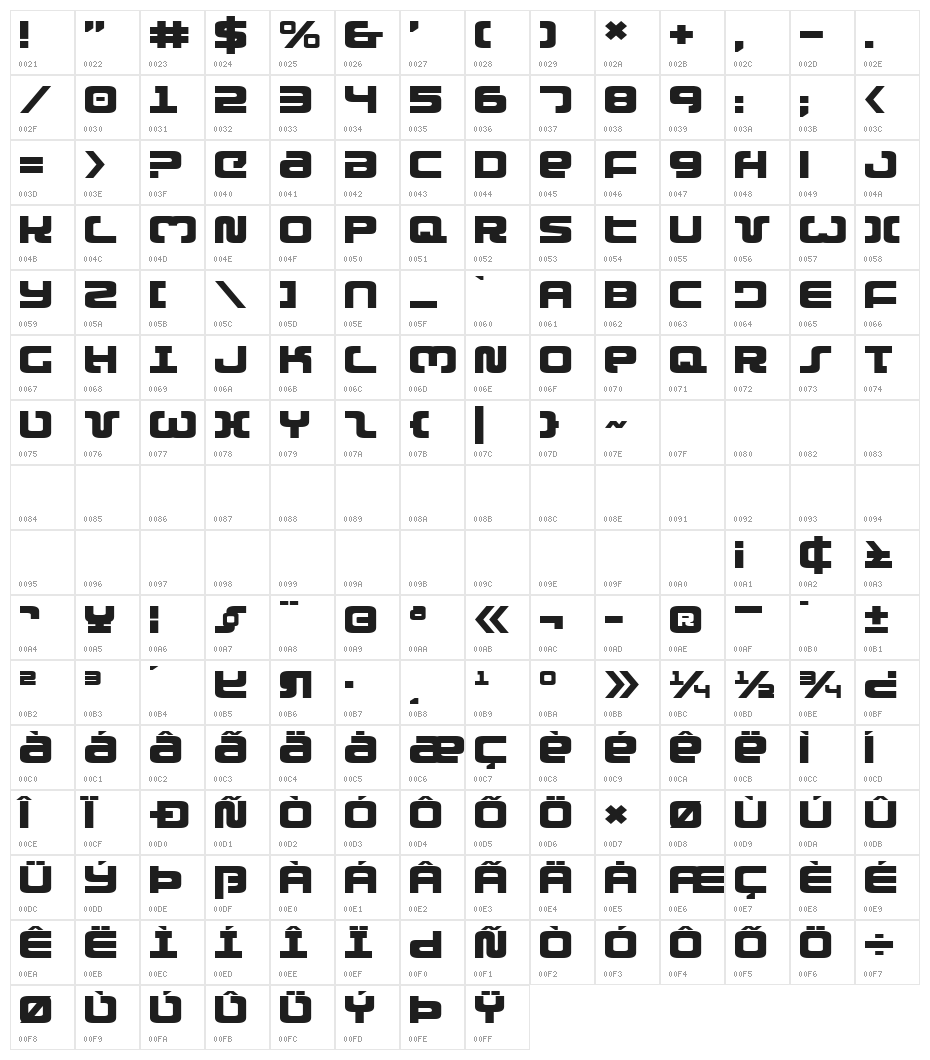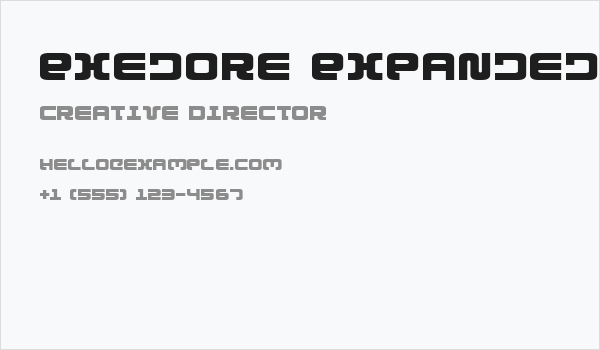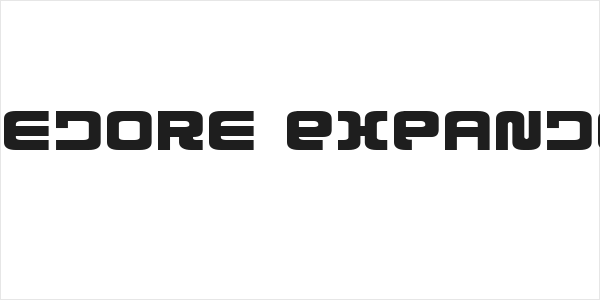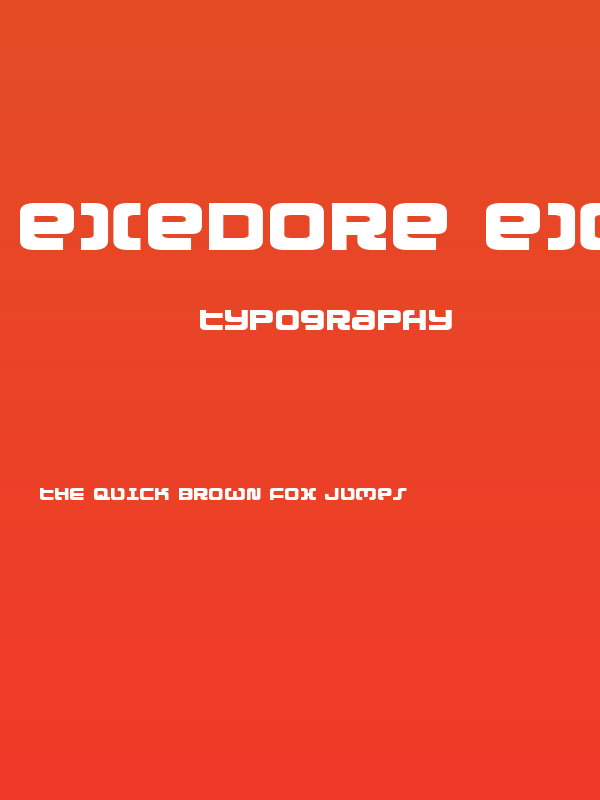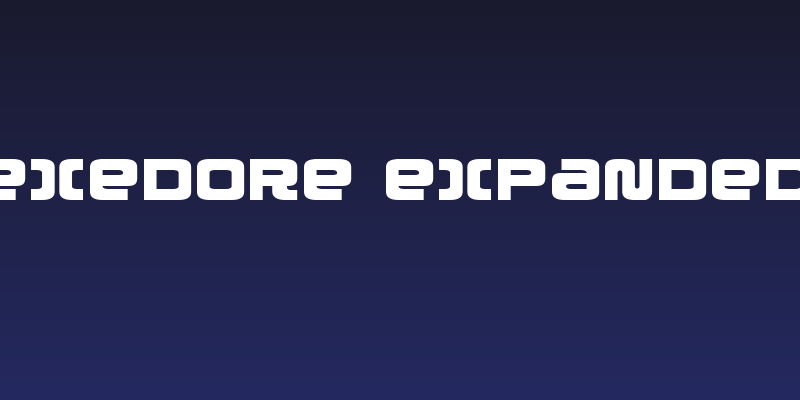
Exedore Expanded Font
Exedore Expanded Description
This font features a bold and futuristic design with a distinctly geometric structure. The characters are wide and have a blocky appearance, contributing to a strong visual impact. The uppercase and lowercase letters share a consistent style, with rounded edges and uniform stroke thickness. The numerals and special characters maintain the same boldness, ensuring a cohesive look across all text elements. This font's expanded width and unique character shapes make it stand out, ideal for projects that require a modern and assertive aesthetic.
| Proposed Projects | Ideal for branding, posters, video game graphics, and sci-fi themed projects. |